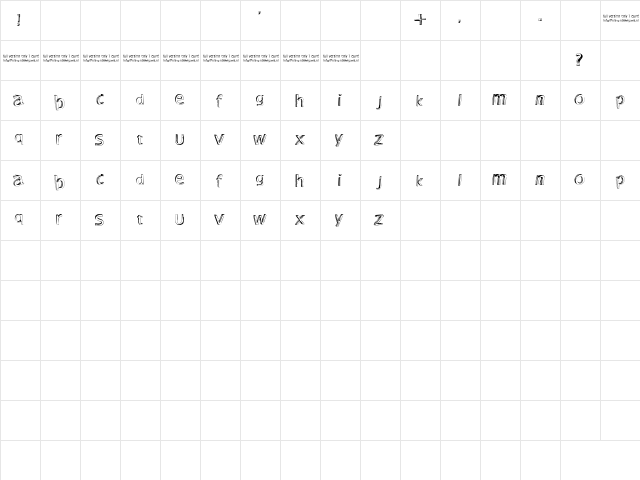
Shutdown! Regular
Design Context for Shutdown! Typeface
Shutdown! is a composed and adaptable typeface that performs quietly and consistently across a wide range of design contexts.